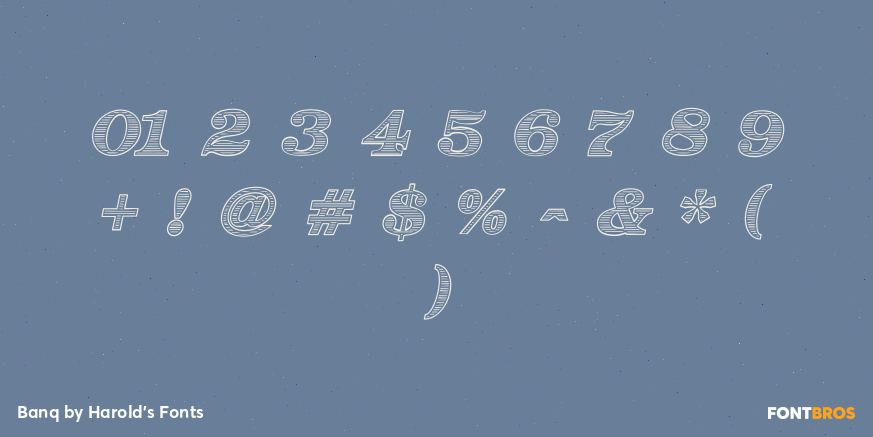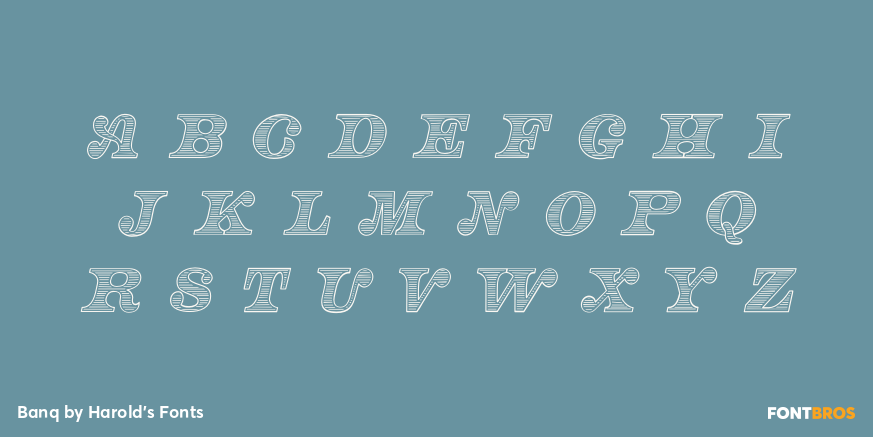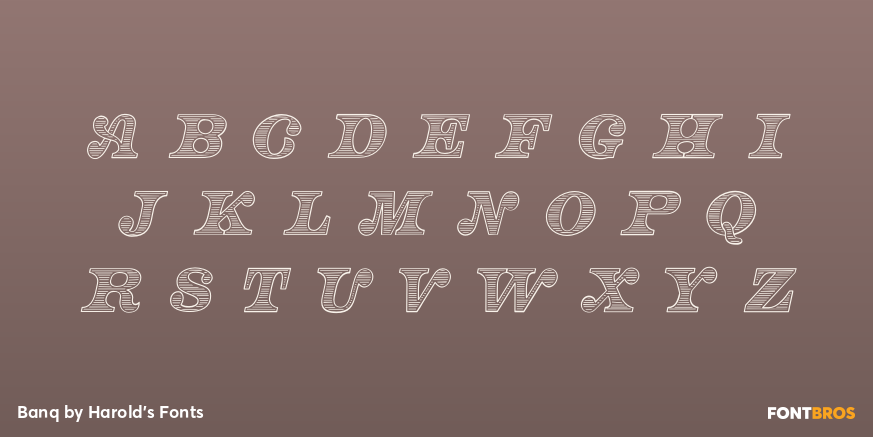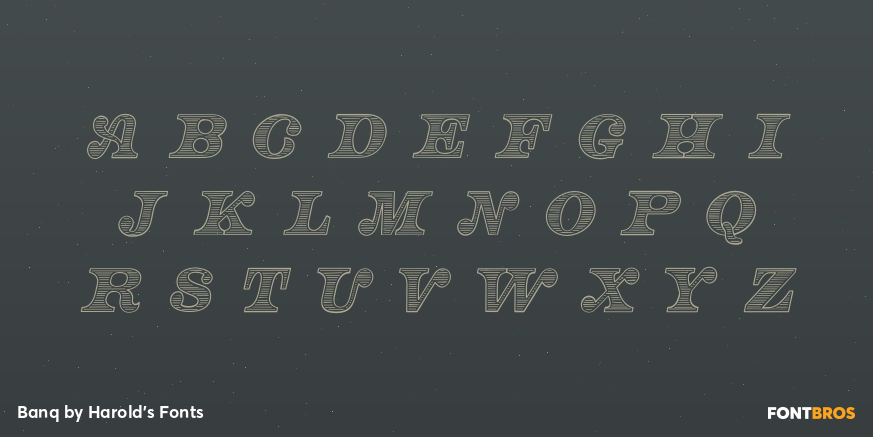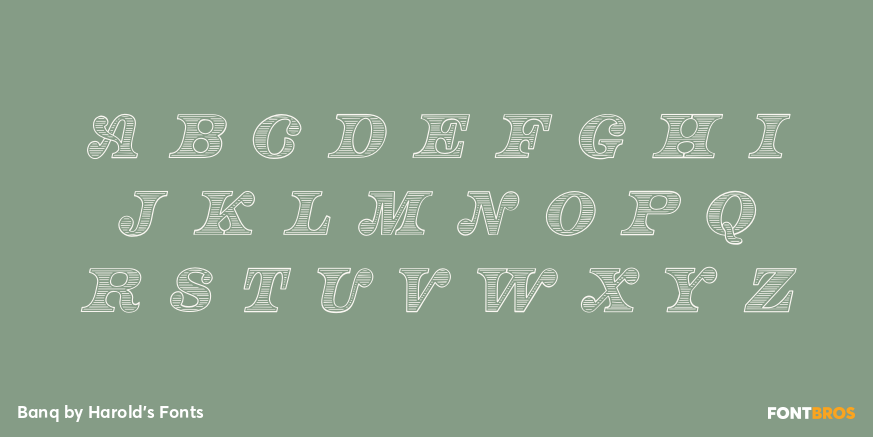
Banq
Font Family by Harold's Fonts
BANQ is big bold italic capitals. With the feel of Gilded Age banknotes and certificates, BANQ announces itself with big ball terminals and graceful swashes. The full set of 8 fonts includes solid and shaded, three-dimensional and shadowed versions.